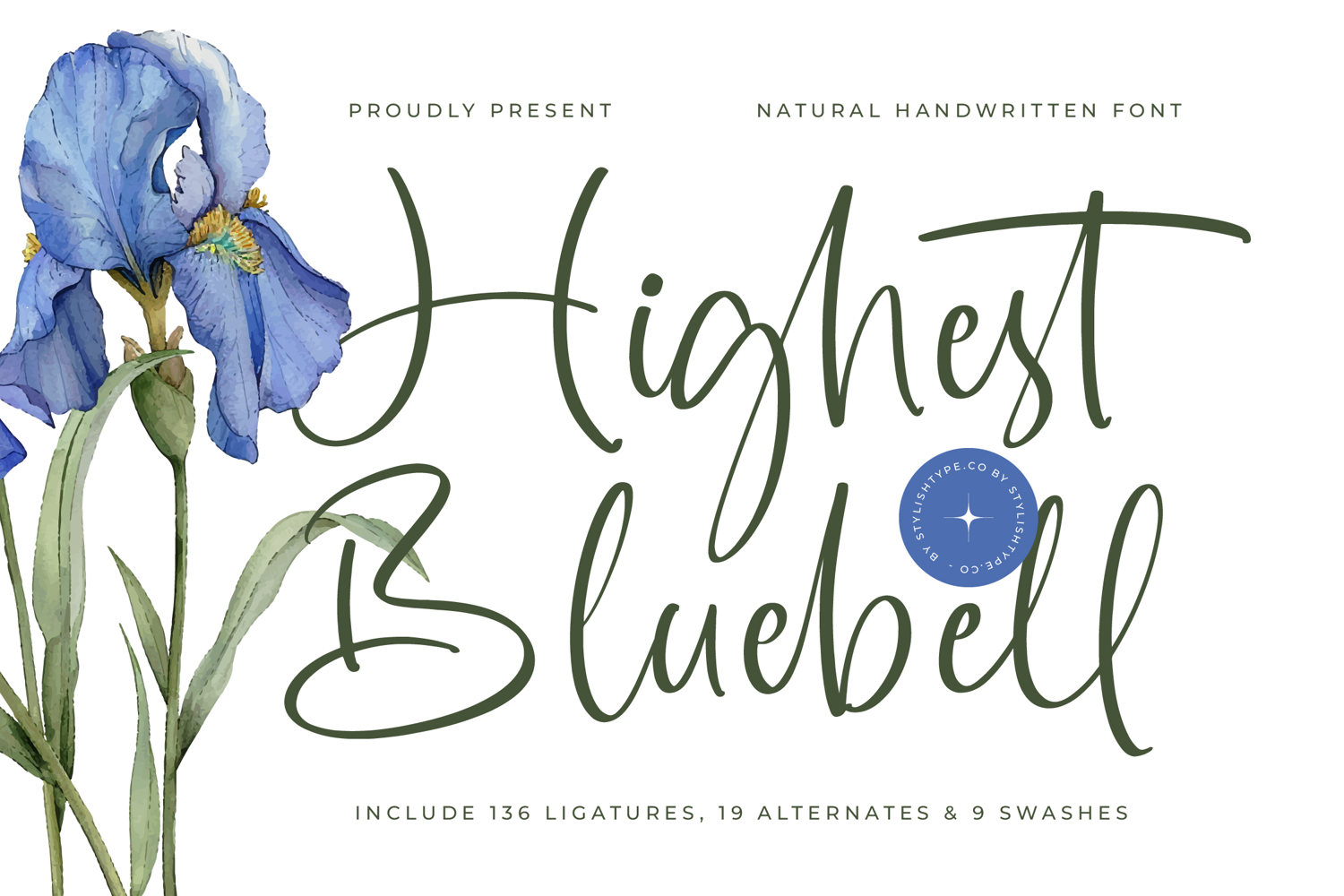
Highest Bluebell - Natural Handwritten Font
Highest Bluebell
Highest Bluebell Italic
Highest Bluebell – Natural Handwritten Script Font
Highest Bluebell is a natural handwritten script font designed with smooth flowing strokes and elegant organic curves. Inspired by real handwriting and modern calligraphy styles, the font captures a graceful and relaxed aesthetic suitable for contemporary design.
The letterforms feature long sweeping lines and balanced handwritten movement that create a soft and elegant rhythm. Its natural flow makes the typography feel expressive and authentic while remaining clean and readable.
Highest Bluebell includes a rich collection of ligatures, alternates, and decorative swashes that allow designers to create unique lettering compositions. These stylistic features provide flexibility when crafting distinctive logos, elegant headlines, and refined branding elements.
The font is ideal for projects that require a stylish handwritten look with a gentle and sophisticated character.